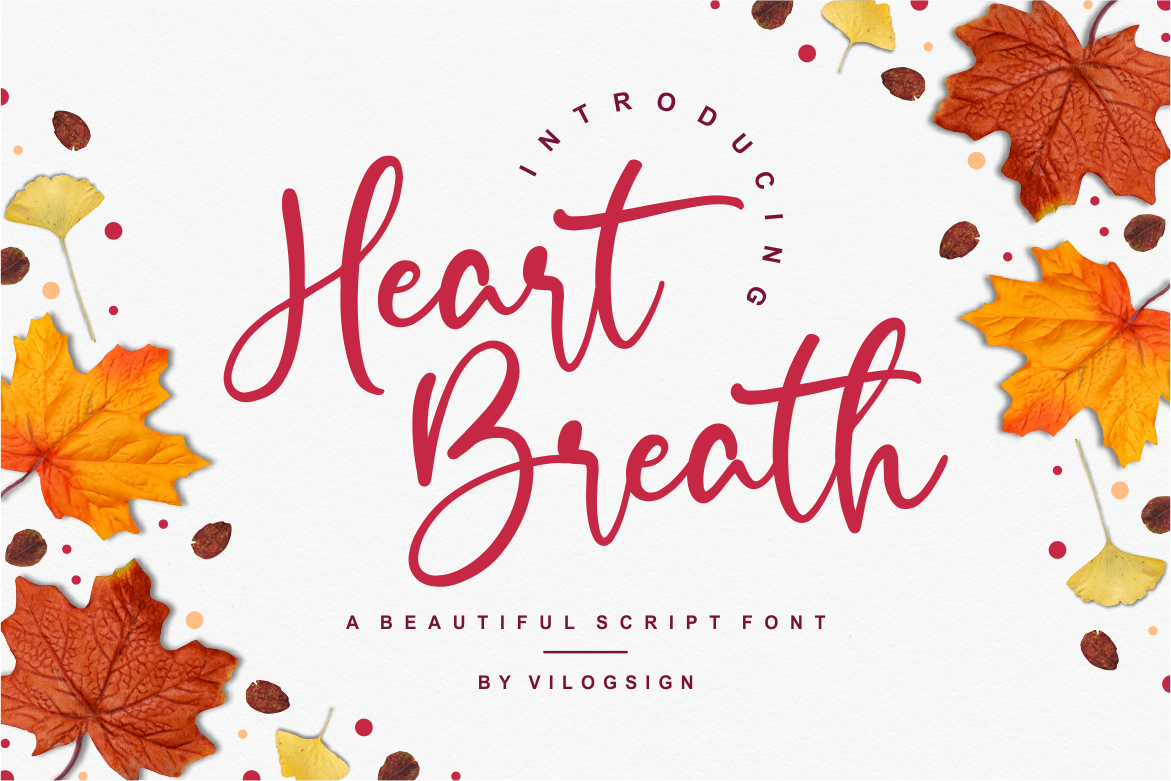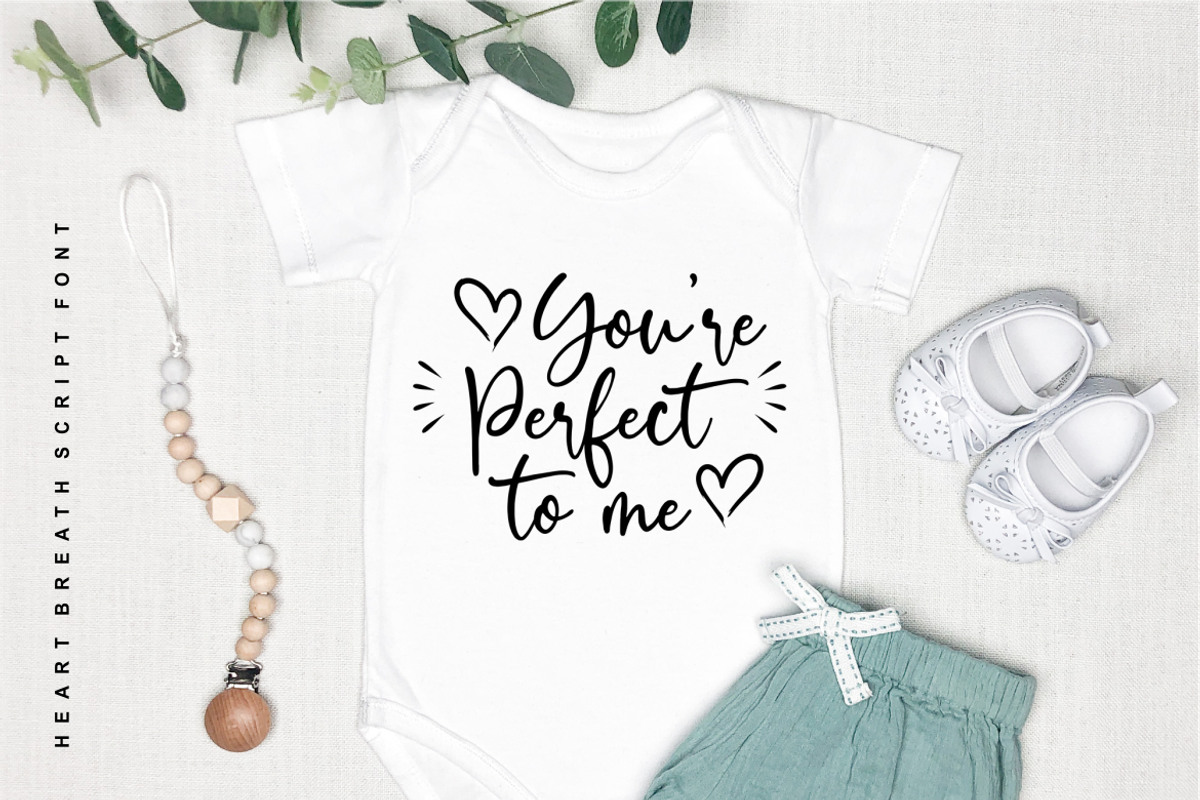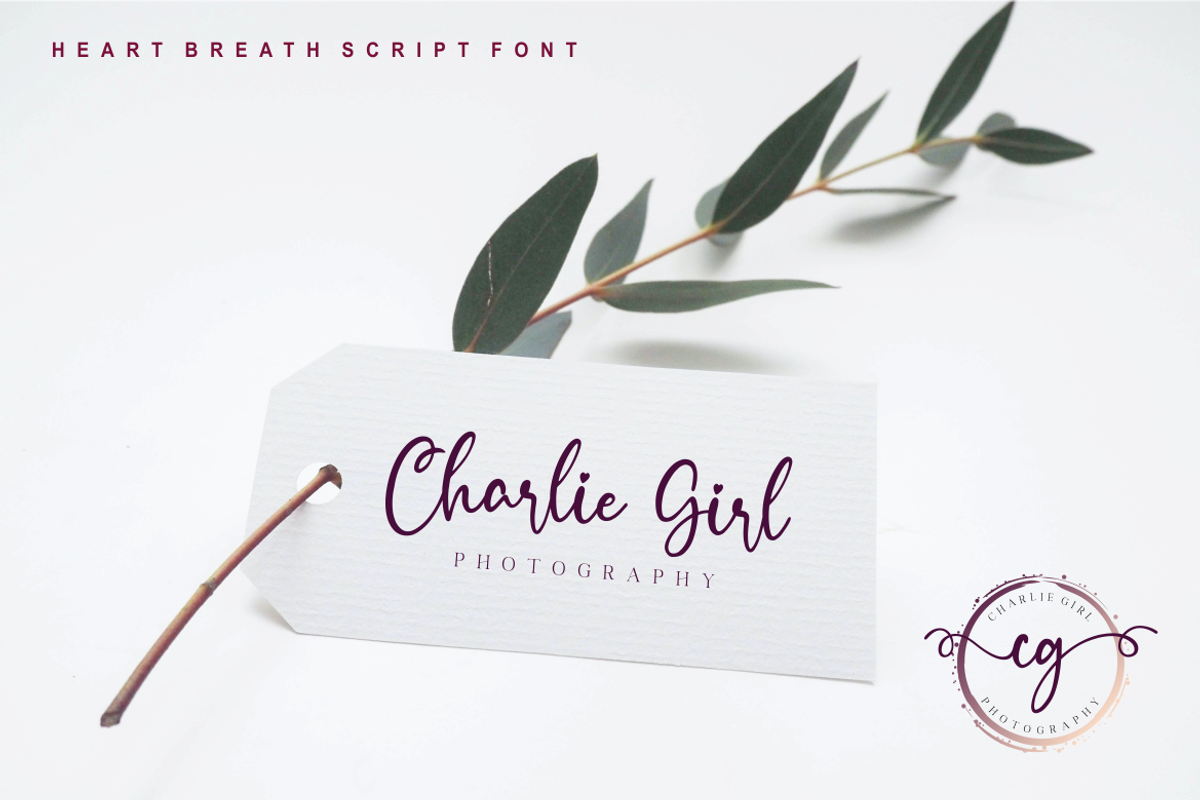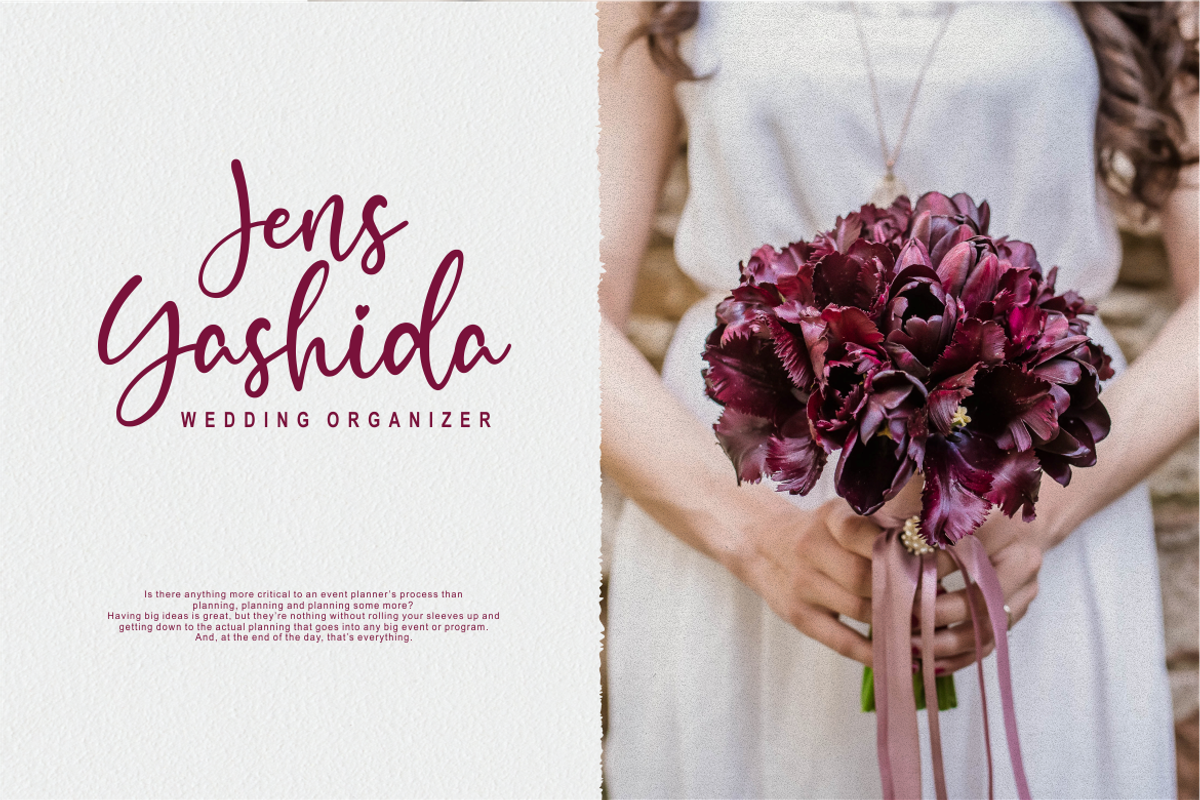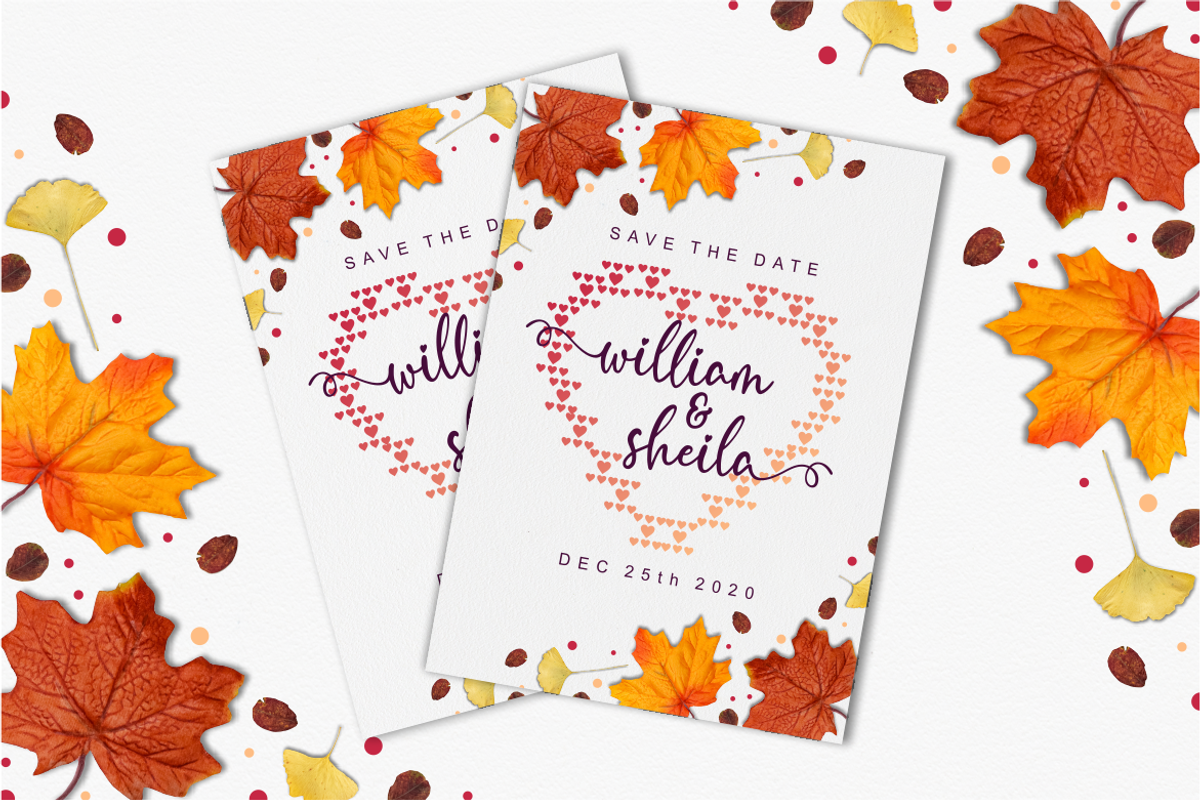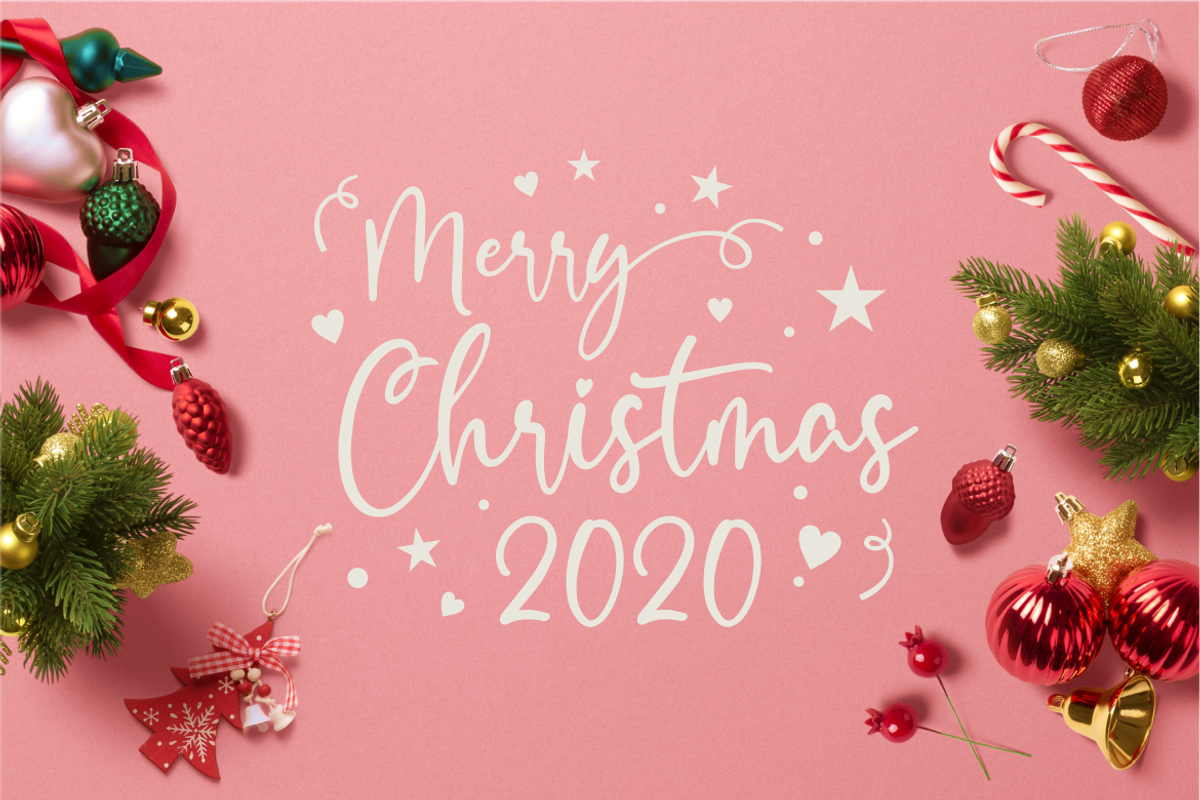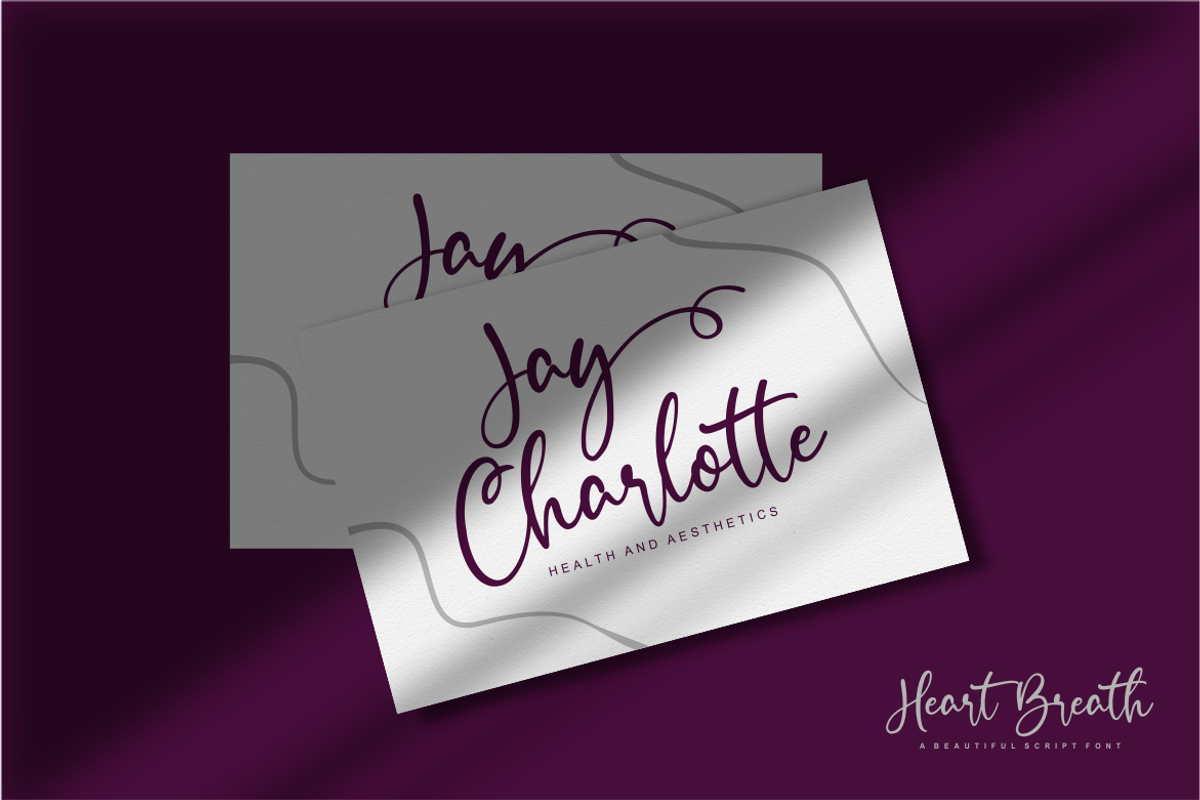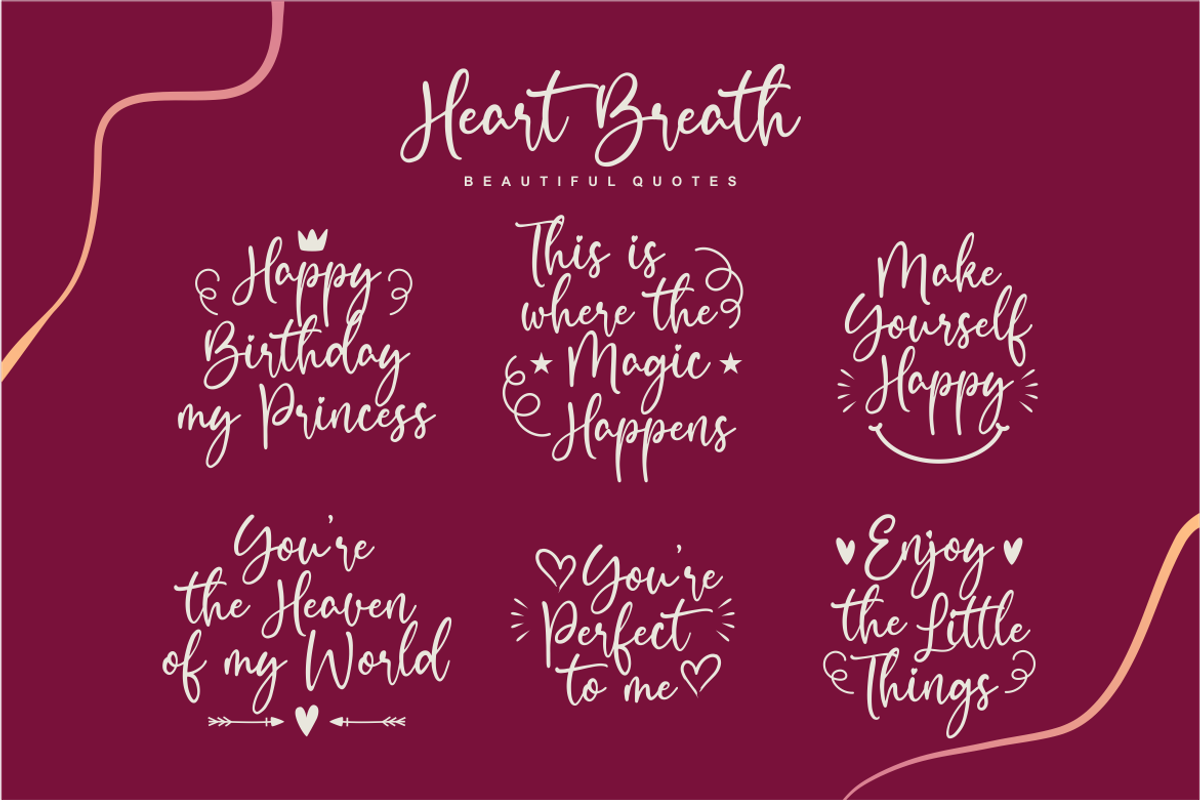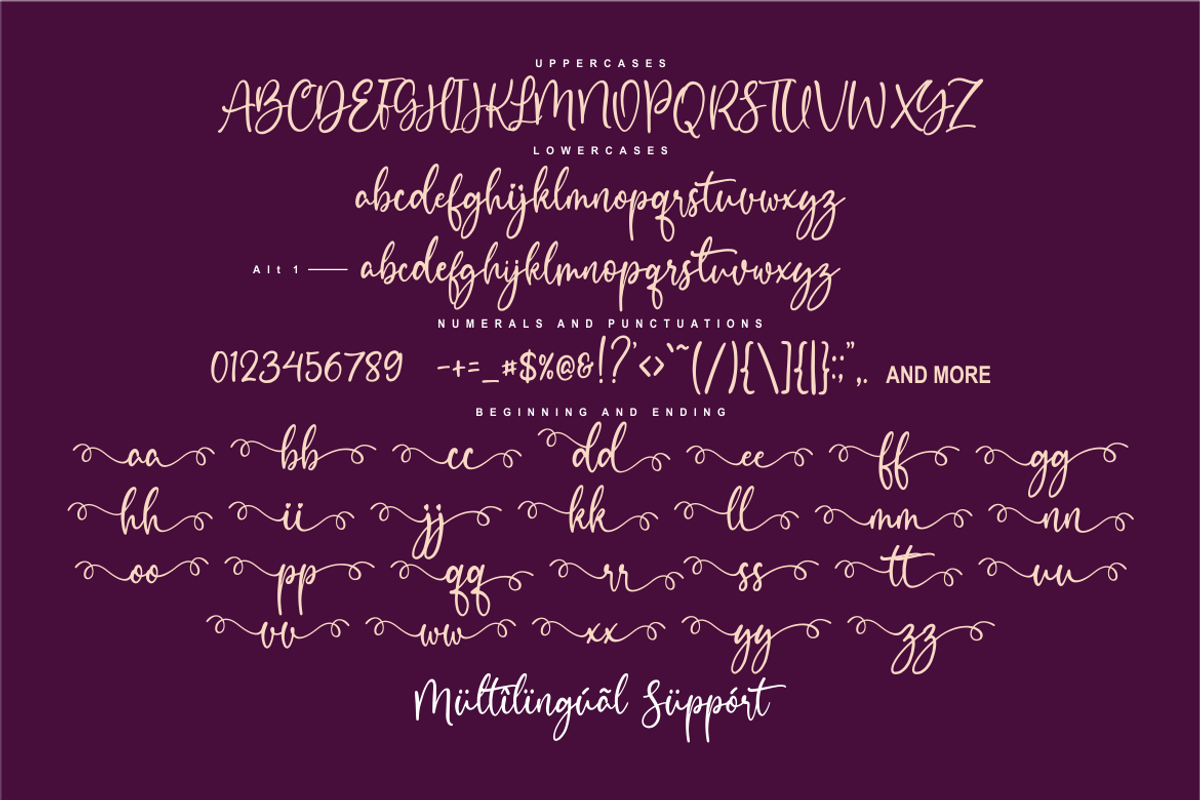
Heart Breath a Beautiful Script Font
Hi,,, Introducing "Heart Breath" a Beautiful Script Font!!!
This unique font has Alternate, beginning, and ending make this font so beautiful and unique. Made with very serious to make this font so perfect for your need. This font is very good with multilingual support to complete your need. This font has many stylistic alternates, ligatures, beginning and ending so you can play around with them using opentype features and creates lettering with natural touch. Very suitable to make a branding, t-shirt, magazine, fashion, quotes, logo, packaging, and other.